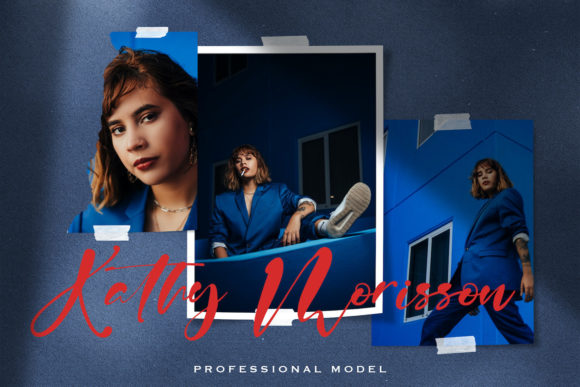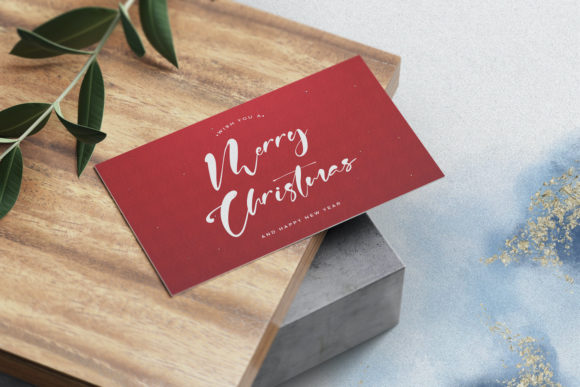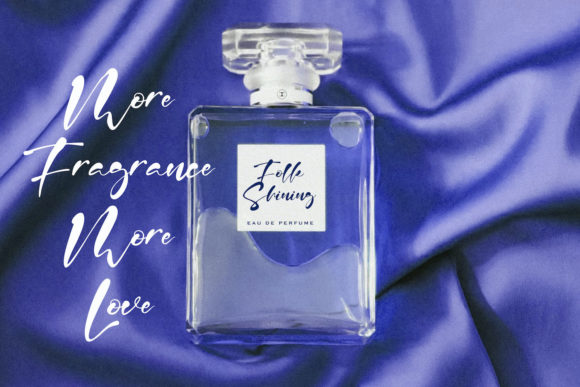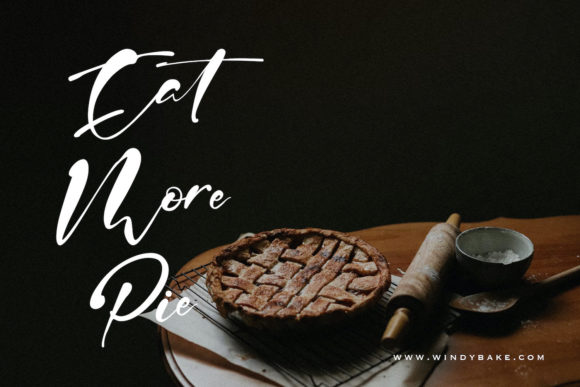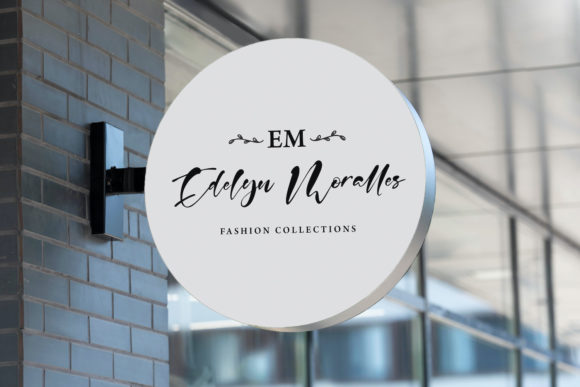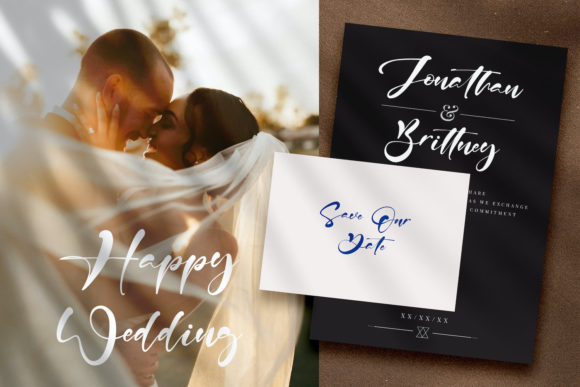
Introducing Anasteziya Font: The Epitome of Elegance and Sophistication
In the realm of typography, few fonts manage to strike a balance between classic elegance and modern flair. Anasteziya Font, however, achieves this delicate balance with remarkable finesse. This exquisite handwritten font is meticulously crafted to captivate designers and crafters alike with its unique blend of traditional calligraphic influences and contemporary freshness.
The Making of a Timeless Font
Anasteziya Font is not just another addition to the vast sea of typefaces. It is a masterpiece that exudes sophistication and class. The designers behind this font have poured their heart and soul into creating a typeface that is not only aesthetically pleasing but also highly versatile. Whether you’re working on a branding project, crafting a beautiful wedding invitation, or designing a captivating poster, Anasteziya Font proves to be an impeccable choice.
Key Features of Anasteziya Font
• Classy Calligraphic Influences: Anasteziya Font is deeply rooted in traditional calligraphy, offering an air of elegance and refinement to any project.
• Contemporary and Fresh: Despite its classic undertones, the font maintains a modern appeal, making it suitable for a wide range of design applications.
• PUA Encoded: One of the standout features of Anasteziya Font is its PUA (Private Use Area) encoding. This means that accessing the various glyphs and swashes is incredibly straightforward, allowing designers to unleash their creativity without any technical hiccups.
Applications of Anasteziya Font
The versatility of Anasteziya Font is one of its most compelling attributes. Here are a few examples of how this magnificent font can be utilized:
• Branding and Logotypes: The elegant and modern feel of Anasteziya Font makes it an excellent choice for creating brand identities that wish to convey a sense of luxury and sophistication.
• Wedding and Event Stationery: For those looking to add a touch of class to their wedding invitations, save-the-dates, or event programs, Anasteziya Font is an ideal selection.
• Packaging and Product Design: The font’s unique blend of classic and contemporary styles can add a distinctive charm to product packaging, making it stand out on store shelves.
• Digital Media: Whether it’s for a website header, social media graphics, or digital advertisements, Anasteziya Font can elevate your digital content with its refined appearance.
Why Choose Anasteziya Font?
In a market saturated with generic fonts, Anasteziya Font stands out for several reasons:
• Unique Aesthetic: Its blend of calligraphic elegance and modern simplicity is hard to find elsewhere.
• Ease of Use: Being PUA encoded, it offers great convenience in terms of glyph and swash accessibility.
• High Versatility: It can be used across various design projects, from print to digital media.
Anasteziya Font is more than just a typeface; it’s a design statement. With its exquisite blend of classic calligraphy and modern freshness, it is poised to become a favorite among designers and crafters. Its PUA encoding adds a layer of convenience, making it not only beautiful but also practical. If you’re looking to elevate your design projects with a touch of elegance and sophistication, look no further than Anasteziya Font. It’s an investment in quality, creativity, and the timeless appeal of beautiful typography.